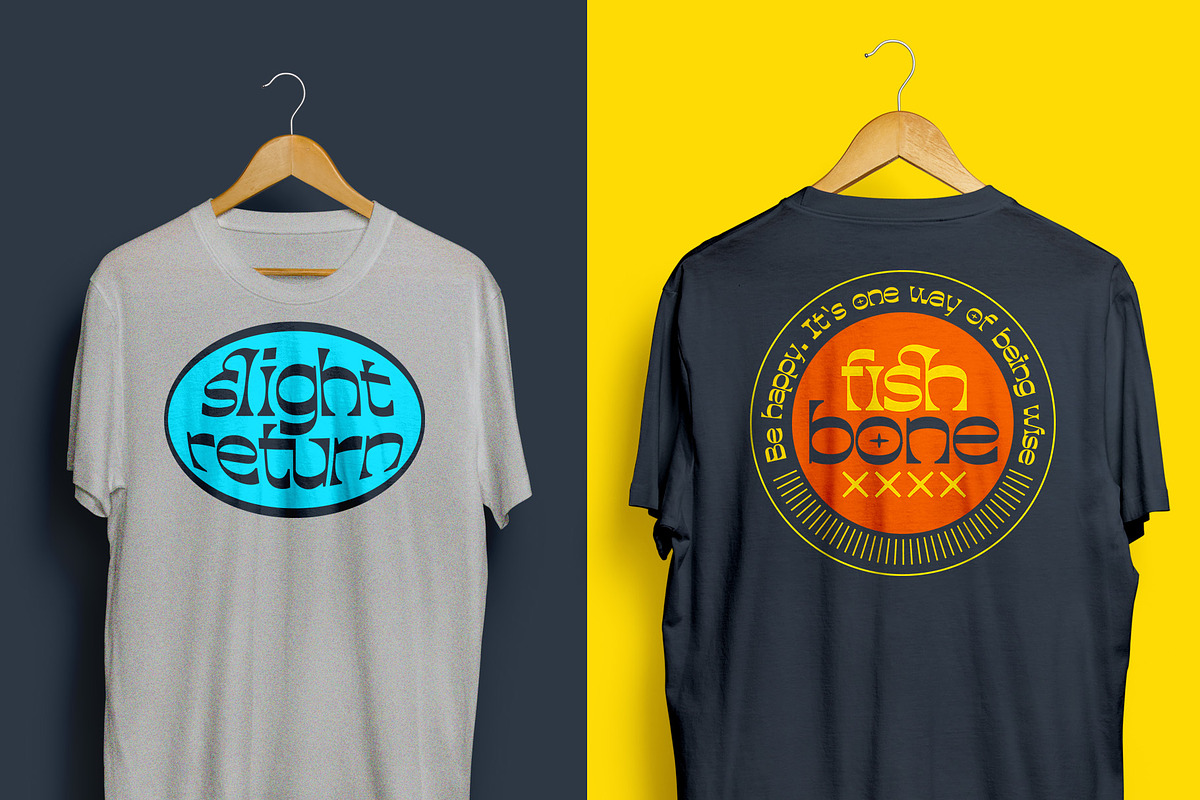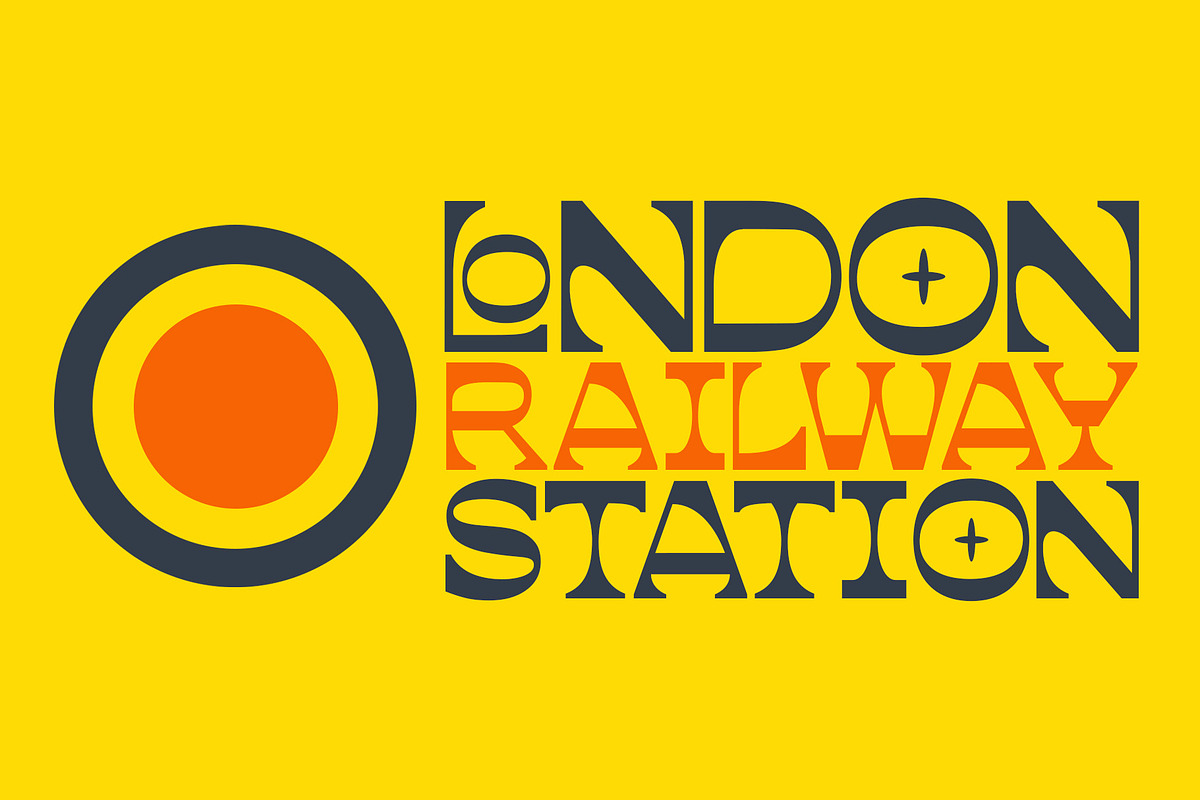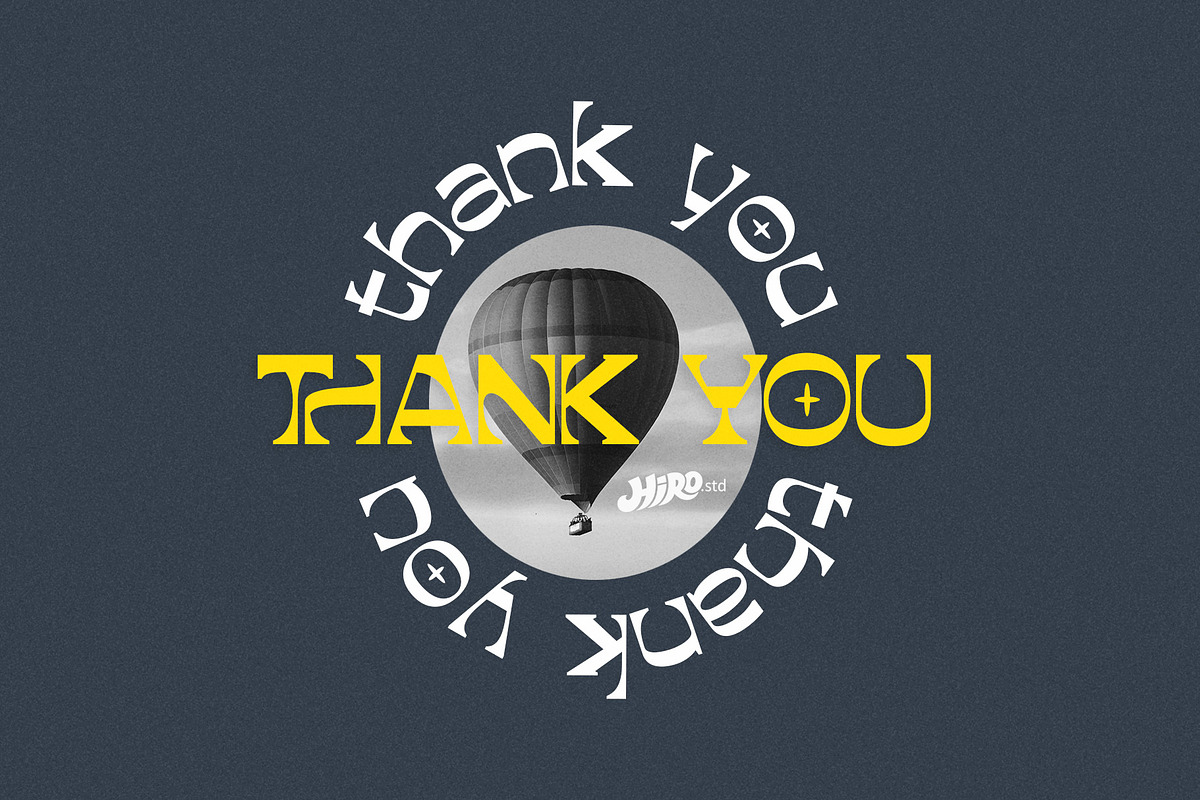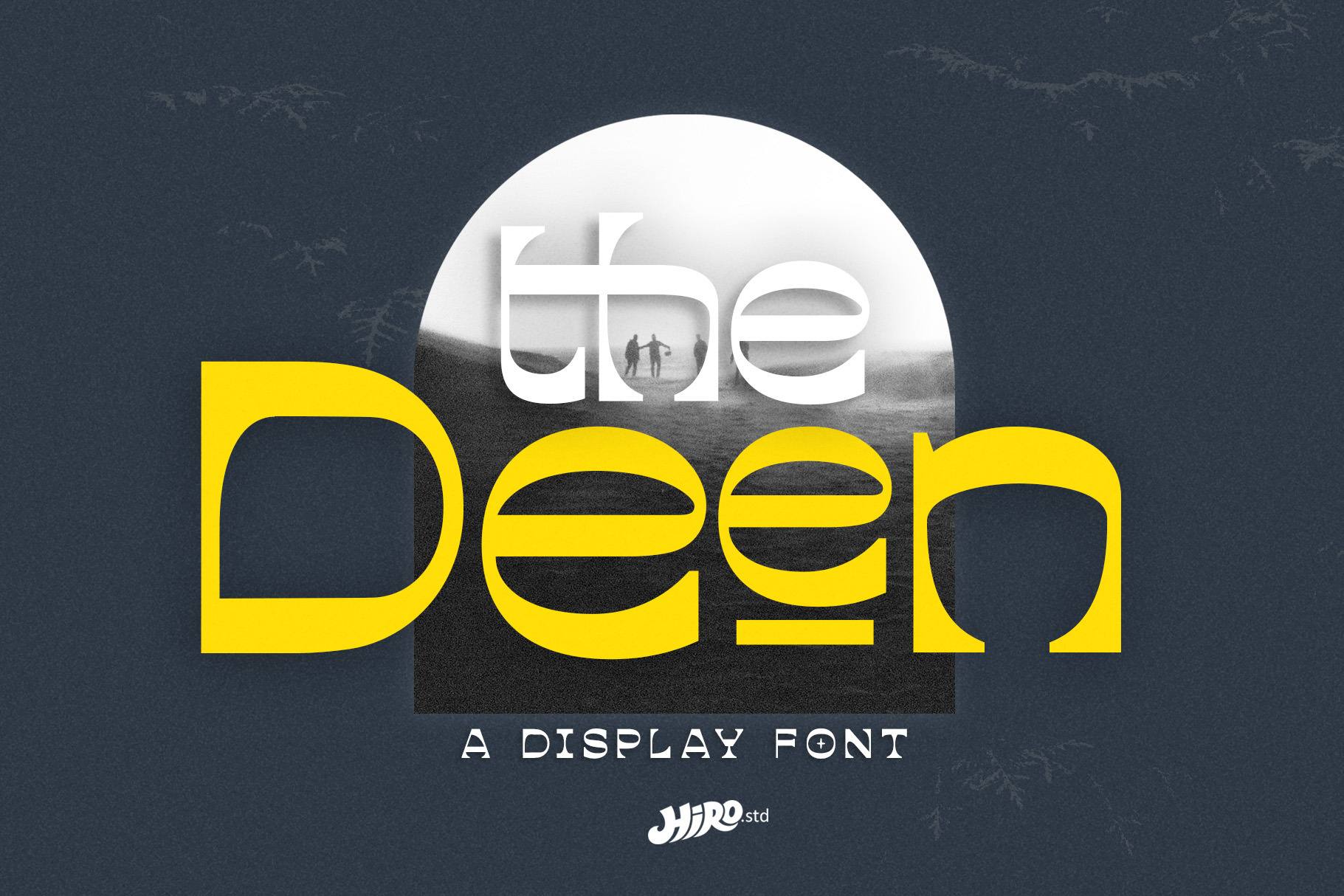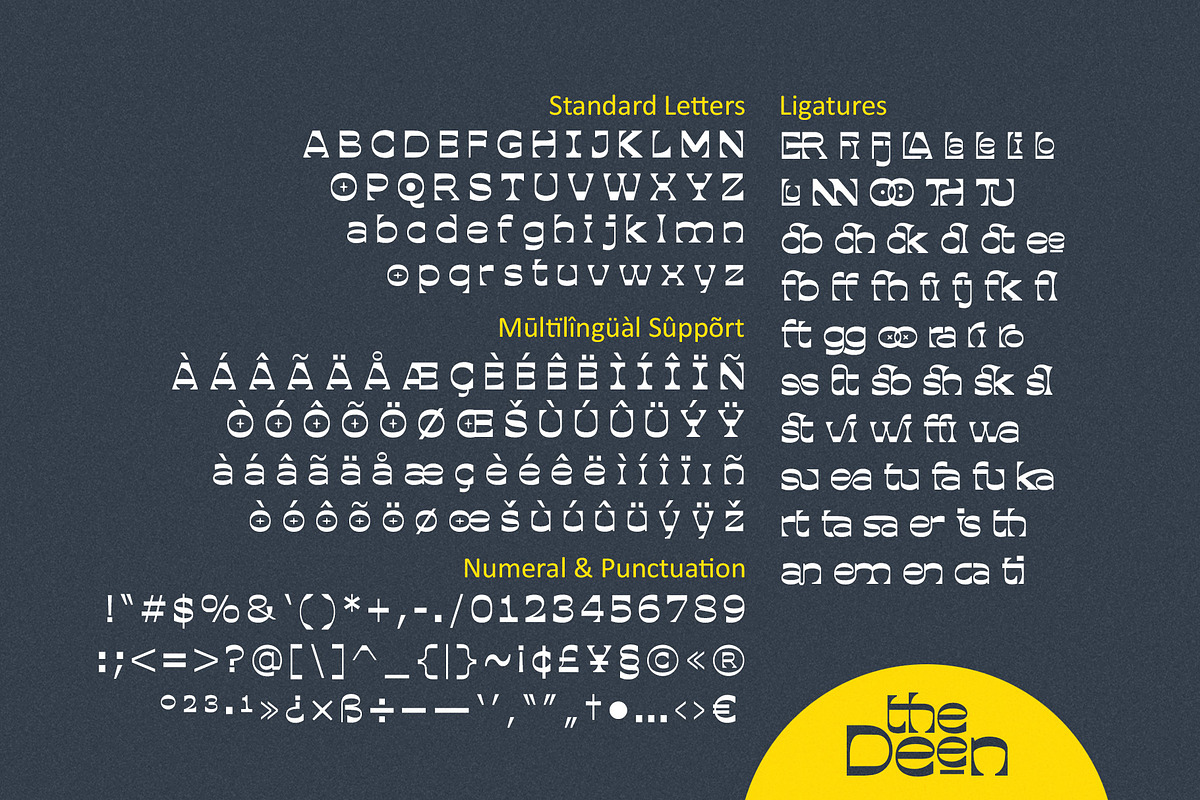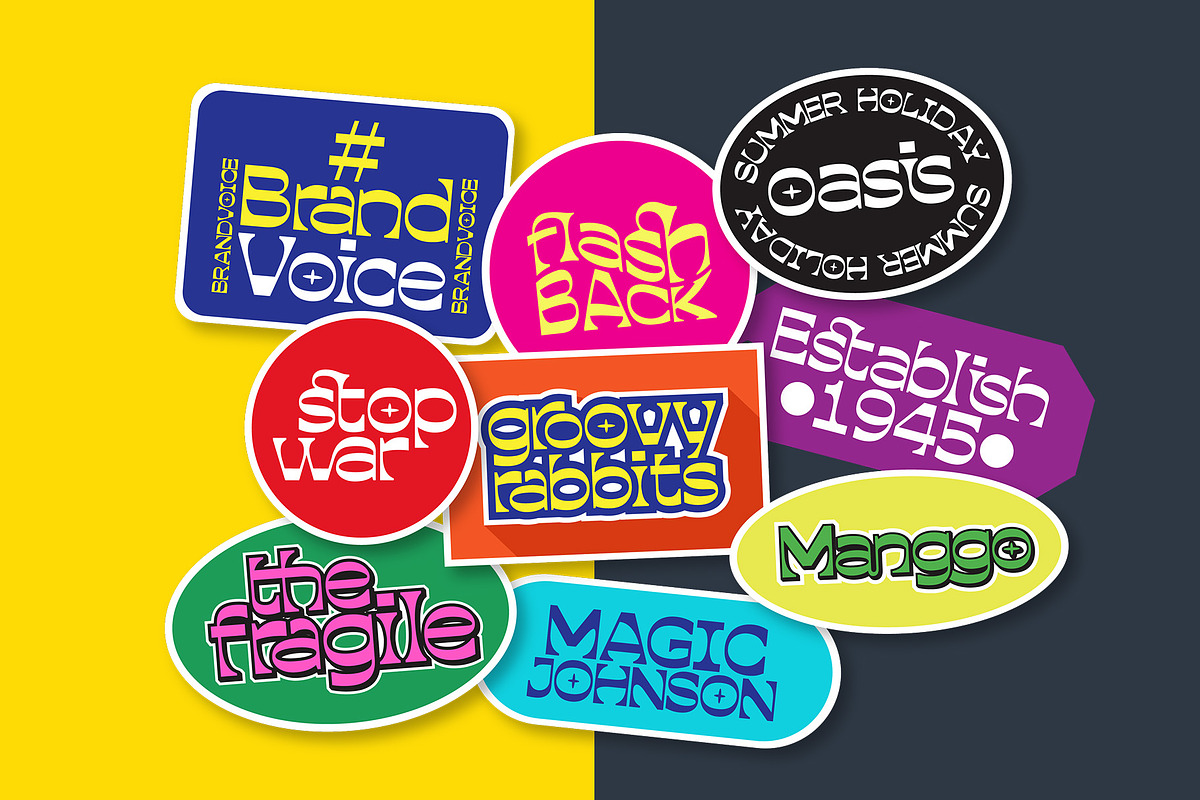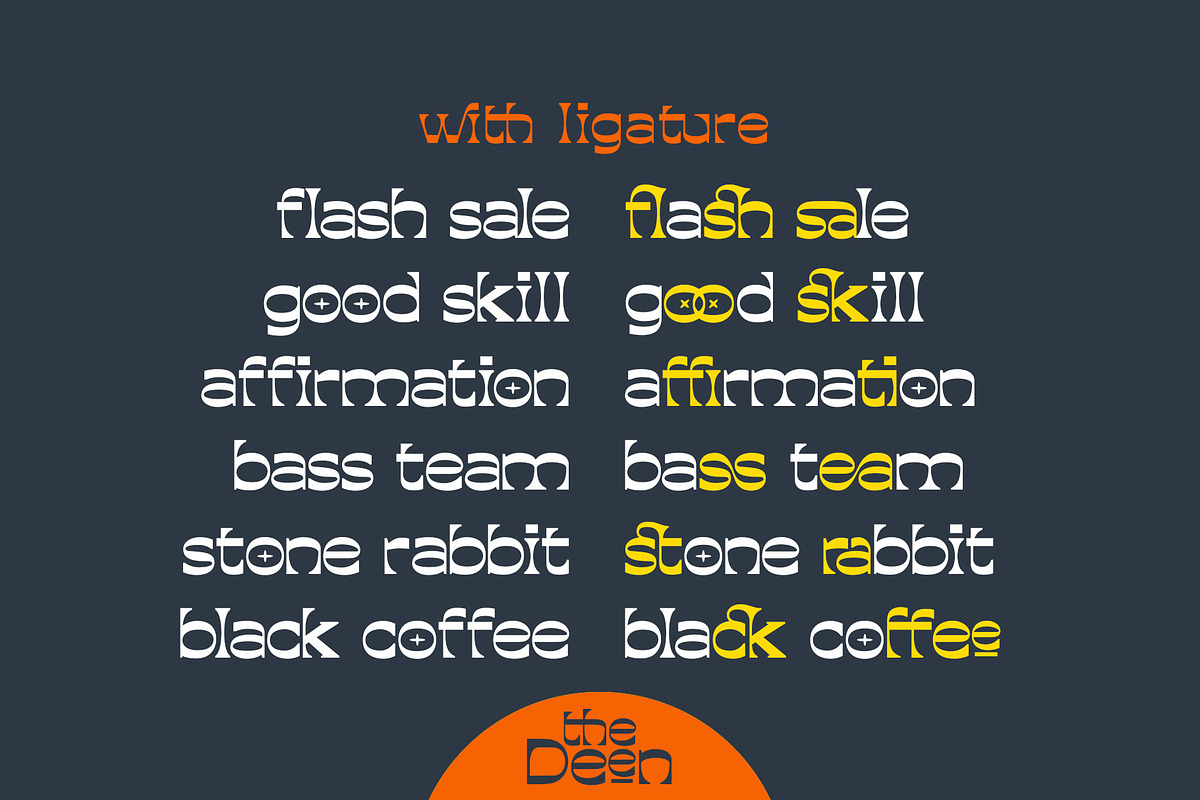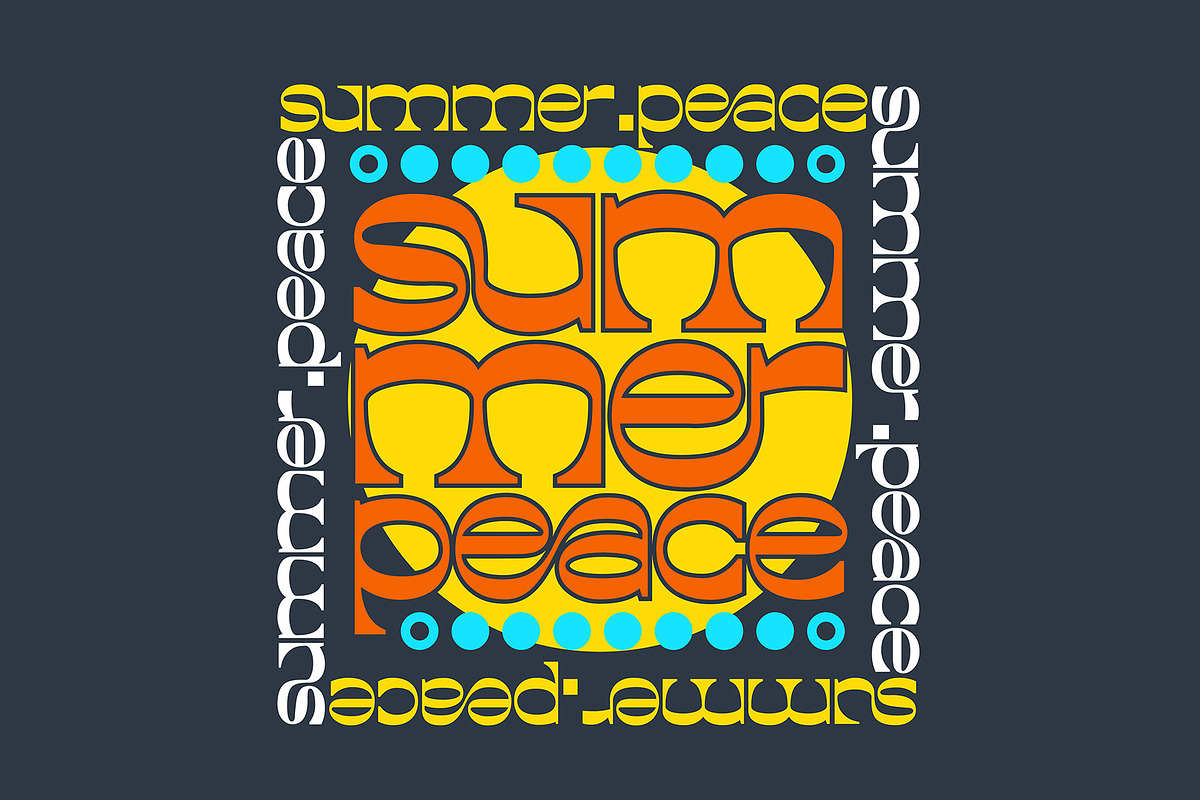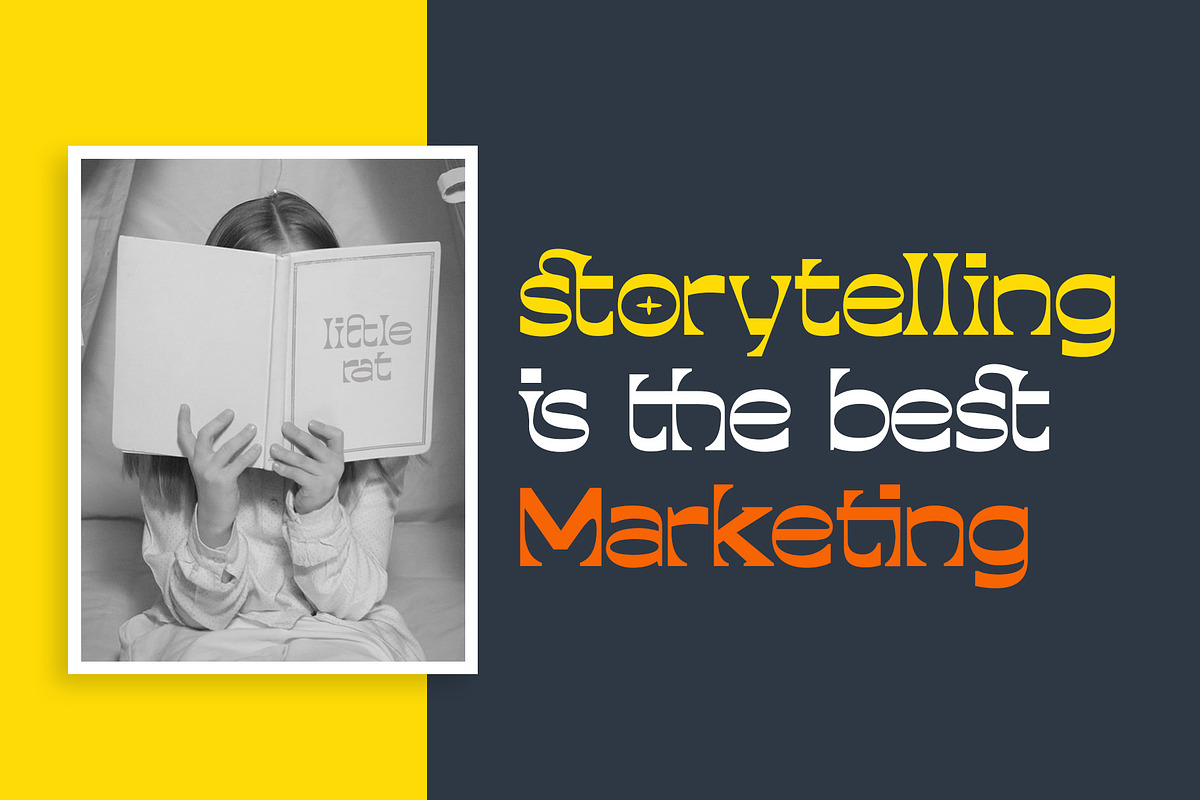
The Deen - Display Font
The Deen is a Display Font.
This font describes about stylist, modern retro, modern vintage, and easy to use. The Deen inspired from the modern, retro, vintage and the taste of art in that era.
- Support Opentype Features
USE The Deen Typeface works great in Logotype, Headline, Social Media, Apparel, Poster, Magazine Titles and wherever you want to be seen.